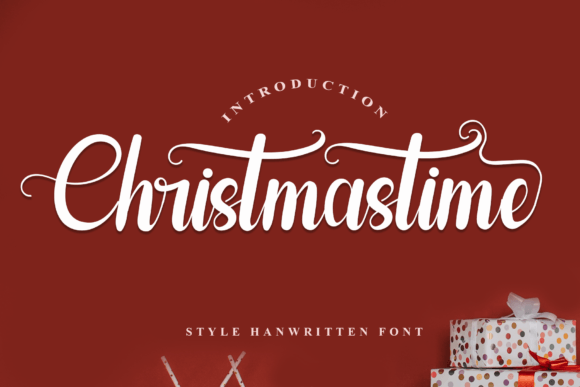
Introducing Christmastime Font, a captivating script font designed by K_IN Studio. This font is not just your ordinary typeface, but a creative masterpiece that will elevate your projects to new heights. With its neat and beautiful handwritten style, Christmastime Font adds an elegant touch to any design, making it perfect for all your business documents.
Say goodbye to boring and generic fonts, and welcome Christmastime Font into your creative arsenal. This font is a true work of art, carefully crafted to capture attention and leave a lasting impression. Its distinctive and timeless style will make your designs stand out from the crowd, setting you apart as a true professional.
Whether you're working on a logo, website, or marketing materials, Christmastime Font is the perfect choice. Its versatility allows it to adapt to any project, adding a touch of sophistication and elegance. Let the font speak for itself and watch as it captivates your audience with its unique charm.
But what truly sets Christmastime Font apart is the emotional connection it creates. As you immerse yourself in its graceful curves and fluid strokes, you'll feel a sense of warmth and beauty. This font has the power to evoke emotions, making your designs resonate with your audience on a deeper level.
Imagine the impact of using Christmastime Font in your business documents. Your clients will be instantly drawn to the beauty and professionalism it exudes. It will convey trust, reliability, and a commitment to excellence. With every word written in Christmastime Font, you'll leave a lasting impression that lingers in the minds of your customers.
In conclusion, Christmastime Font is not just a font for business documents, it's a gateway to creating extraordinary designs that leave a lasting impact. Its beauty, versatility, and emotional connection make it a must-have for any creative professional. Download Christmastime Font today and unlock a world of endless possibilities.